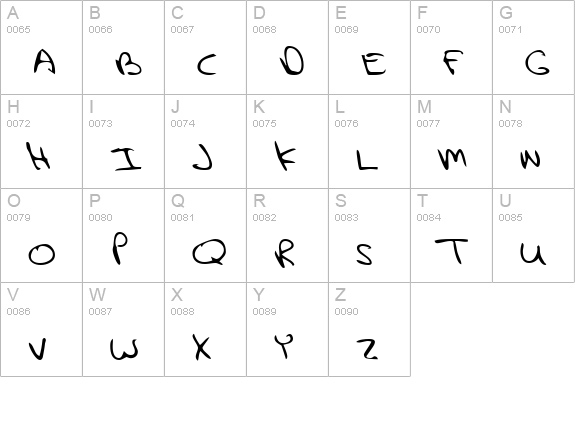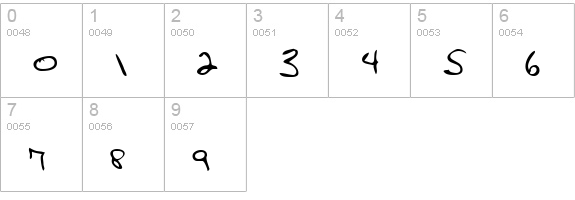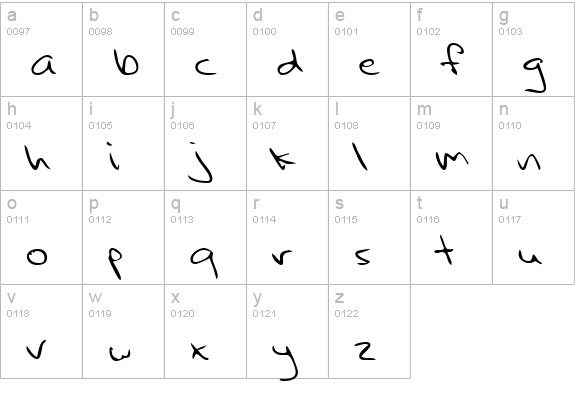
QueeniesHand Regular is the standard, neutral variant in the QueeniesHand typeface family \xE2\x80\x94 well suited to general body text, paragraphs, and standard typographic work.
QueeniesHand Regular is a beautifully crafted font that combines elegance with a touch of playfulness. Its flowing lines and delicate curves give it a unique and charming character that is perfect for adding a personal touch to any design project. One of the best things about QueeniesHand Regular is that it is completely free. Yes, you heard that right - this stunning font can be downloaded for free at FontsMarket.com. Whether you're a professional designer or someone looking to add a special touch to your personal projects, QueeniesHand Regular is a font that you don't want to miss out on. With its versatile and stylish design, QueeniesHand Regular is suitable for a wide range of applications. From wedding invitations to logos, from social media graphics to branding materials, this font has the ability to elevate any design and make it stand out from the crowd. The attention to detail in QueeniesHand Regular is truly remarkable. Every letter and every curve is meticulously crafted to ensure a seamless and visually pleasing reading experience. The result is a font that not only looks beautiful but also feels comfortable to read, making it a perfect choice for body text as well as headlines. So why wait? Download QueeniesHand Regular for free today at FontsMarket.com and start adding a touch of elegance and playfulness to your designs. Whether you're a professional or a hobbyist, this font is sure to become a valuable addition to your collection. Don't miss out on this opportunity to enhance your designs with the beauty and charm of QueeniesHand Regular.